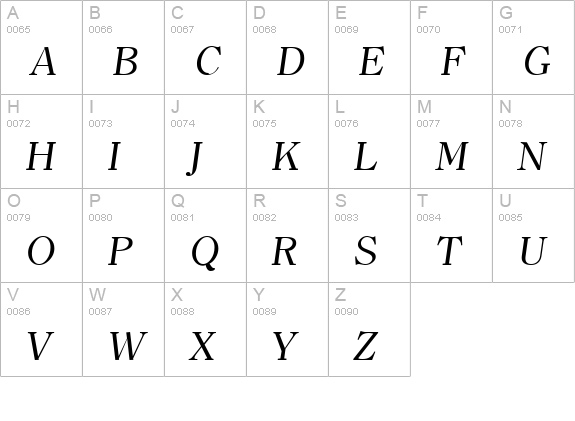
ClearlyRoman kursiv Font Details
ClearlyRoman kursiv is a sophisticated and elegant font that exudes a timeless charm. With its flowing italic style and classic Roman design, this font is perfect for adding a touch of refinement to any project. The graceful curves and clean lines of ClearlyRoman kursiv make it a versatile choice for a wide range of design applications, from invitations to branding to editorial layouts. What's even better is that ClearlyRoman kursiv is available for free download at FontsMarket.com, making it accessible to all designers and creatives looking to elevate their work with a touch of sophistication. Don't miss out on the opportunity to add this beautiful font to your collection and bring a touch of classic elegance to your next project.